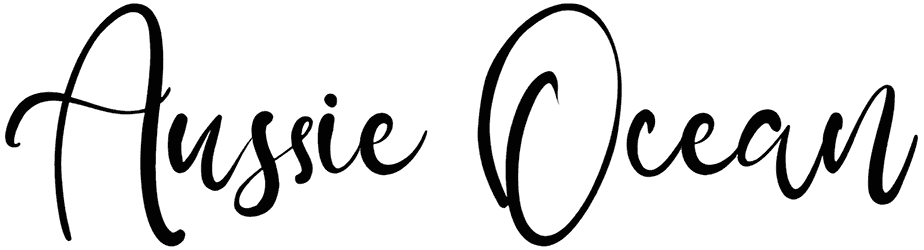
Aussie Ocean Font
If you want to add an artistic touch to all of your creative ideas and turn them into a true piece of art, then you should definitely take the best possible advantage of a lovely script font such as the Aussie Ocean.
Since this rounded handwritten font comes with crooked letters, it can bring a sense of personalization, drama, tenderness, and momentum to all of your graphic content. You can use it in your posters, flyers, magazines, and brochures.